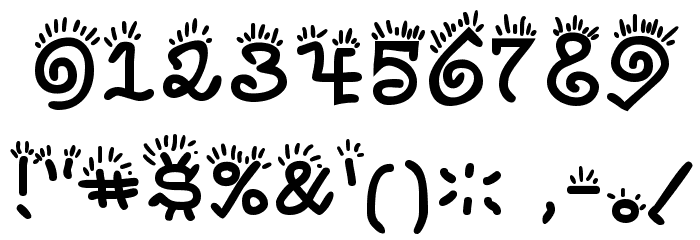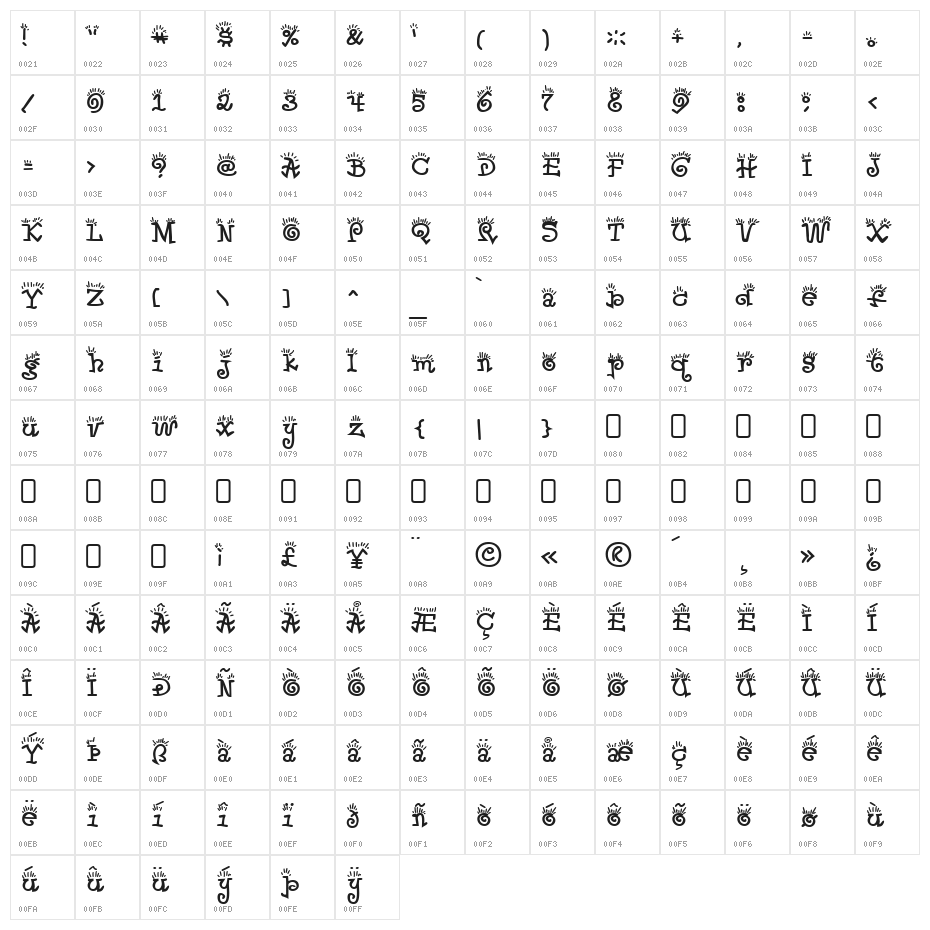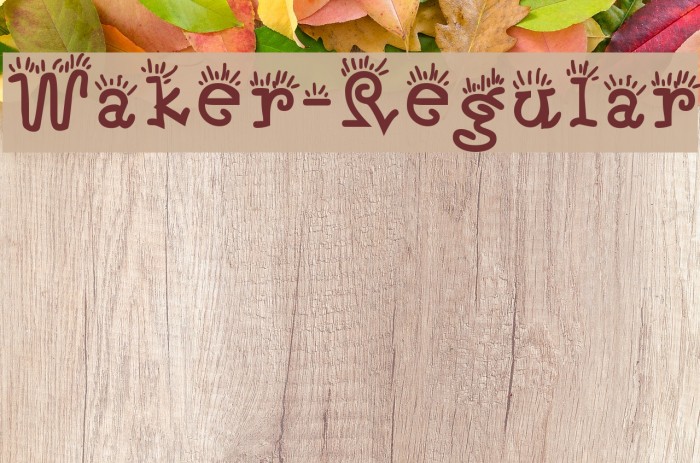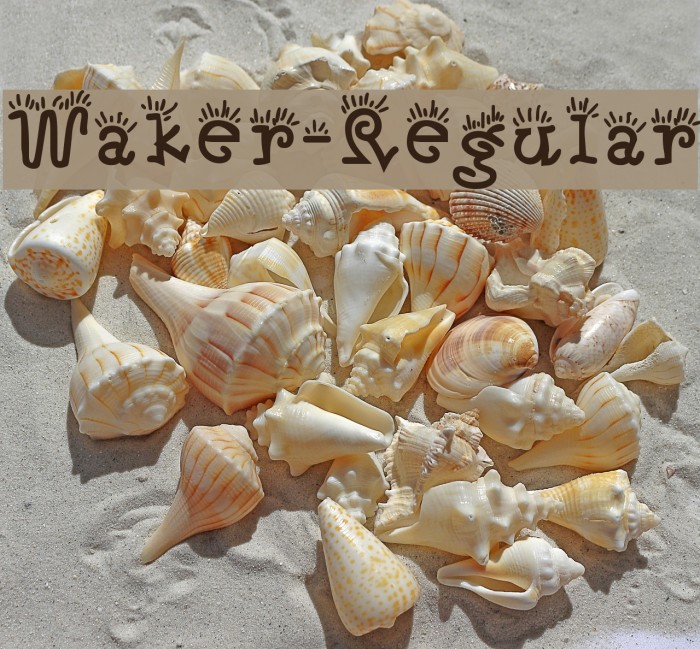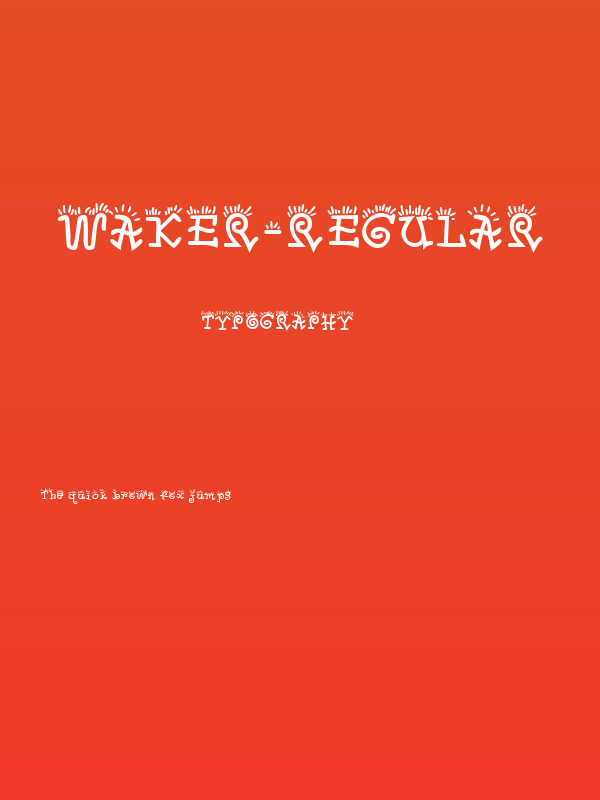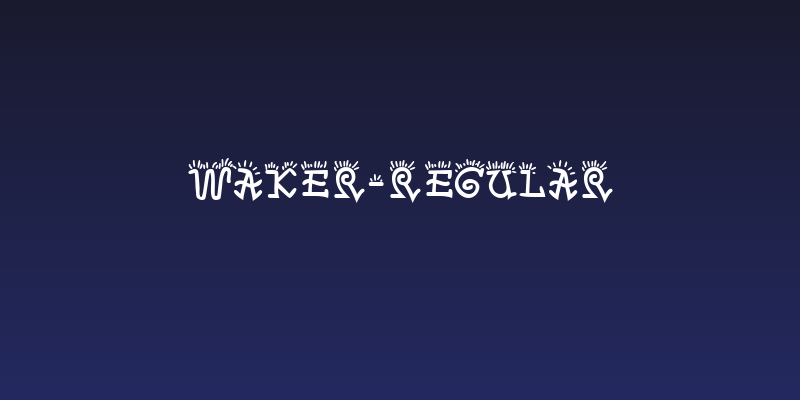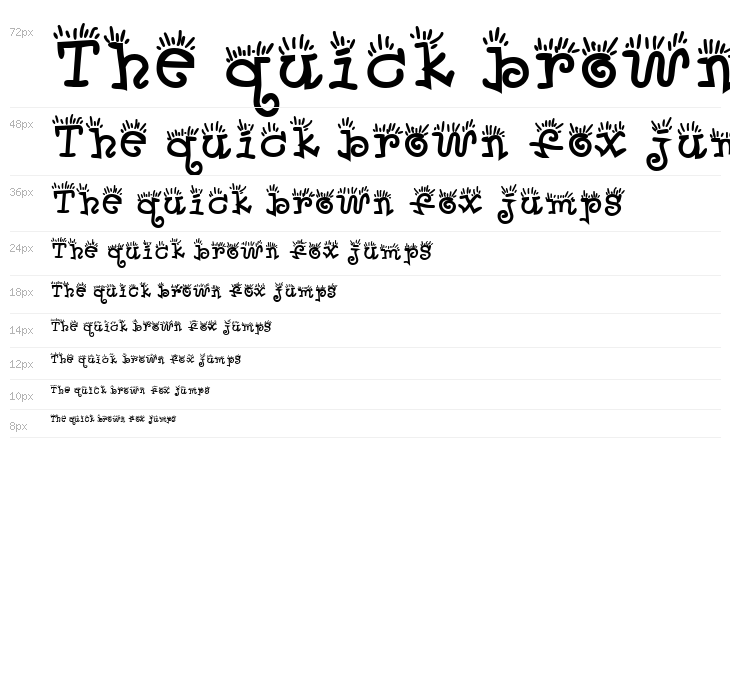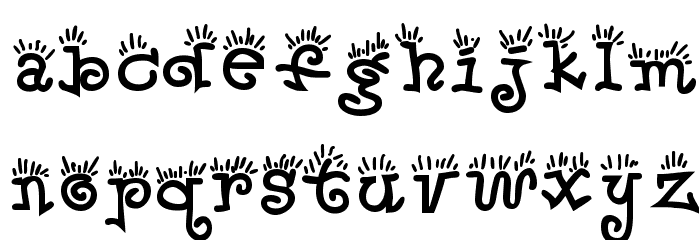
Waker-Regular Font
Waker-Regular Description
This playful and whimsical font features unique decorative elements that resemble eyelashes or rays extending from the top of each character. The letters are bold and rounded, with a slightly irregular shape that adds to the font's quirky charm. The uppercase and lowercase letters maintain a consistent style, with the uppercase being slightly more exaggerated in their embellishments. Numbers and special characters follow the same design principles, ensuring a cohesive look across all glyphs. This font's distinctive style makes it stand out, perfect for projects that require a fun and eye-catching typeface.